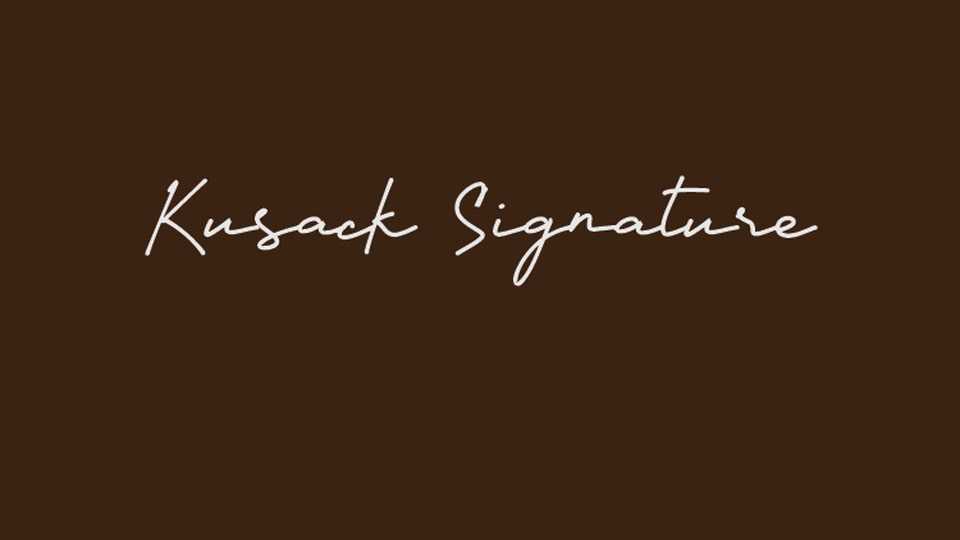
Download Kusack Signature font, a casual typeface that strikes a balance between the grace of cursive handwriting and the simplicity of a personal signature.
Designer: Linafis Studio